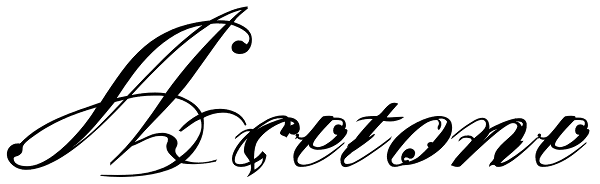
Acetone
Acetone was made to the sound of trip-hop. Originally made in 1999 with dry-transfer letters and called Toussenni. In 2000-2001 i reworked it, made it less random and renamed it. In 2003 I developed the free complimentary dingbat 'Aether' to be used...